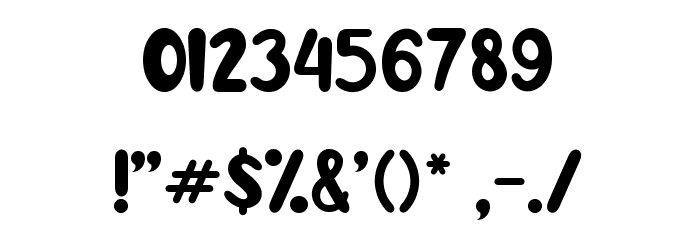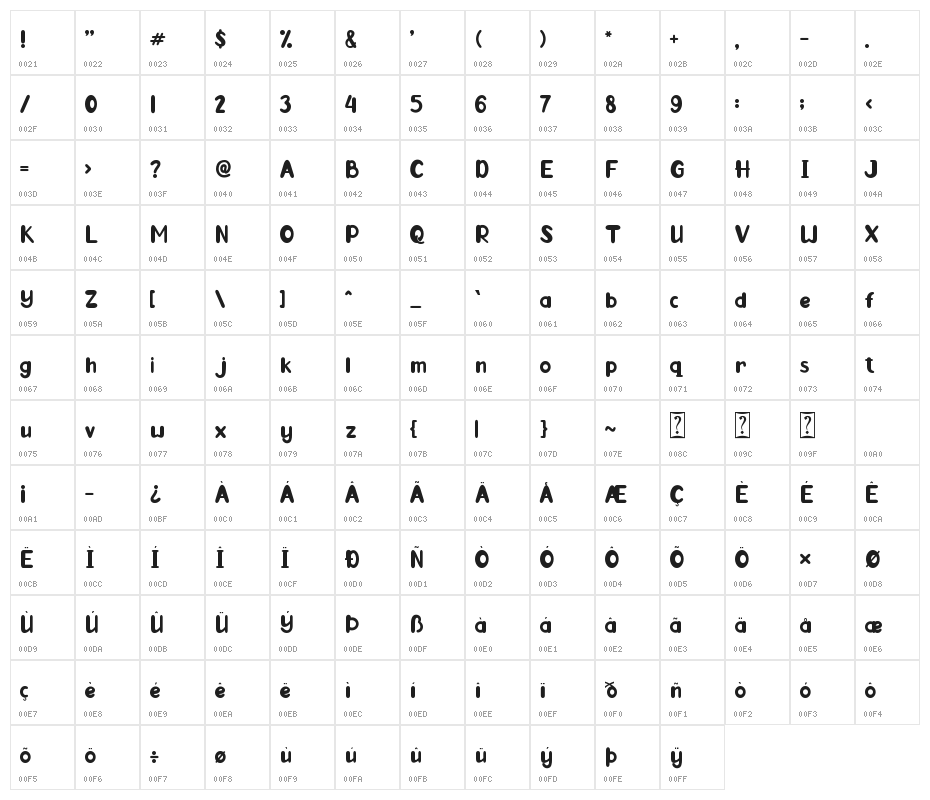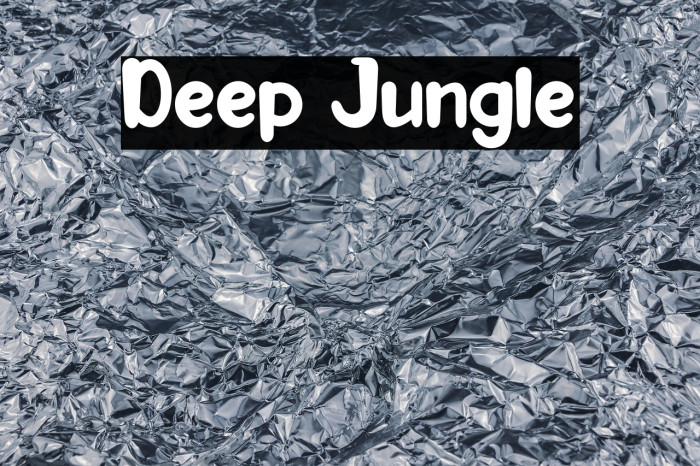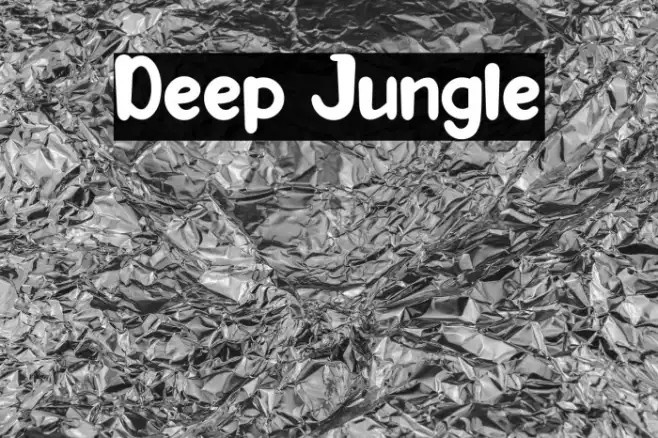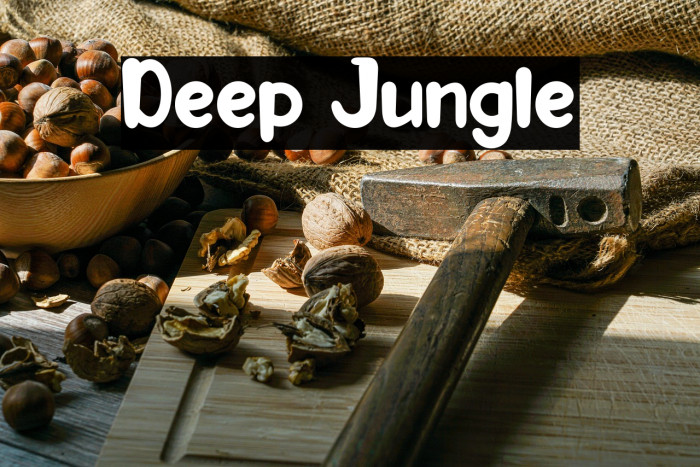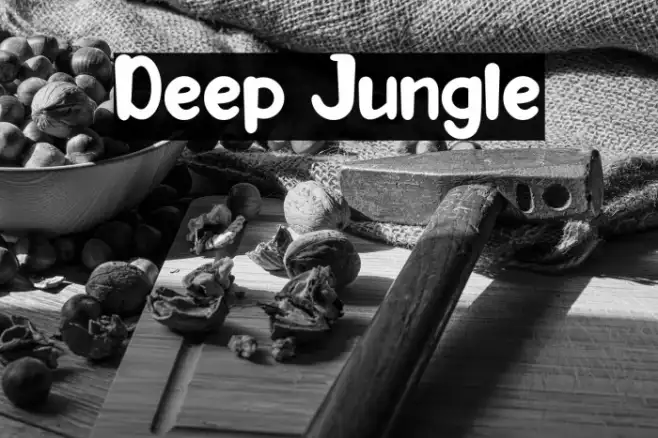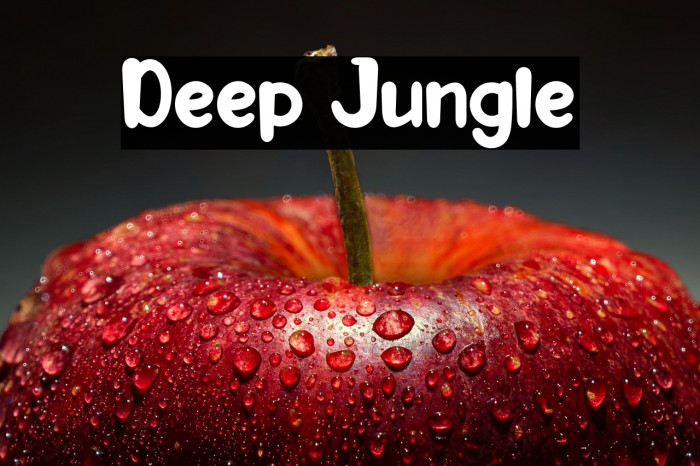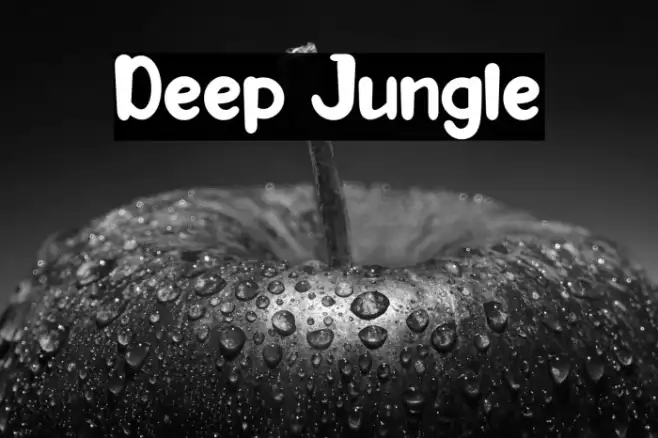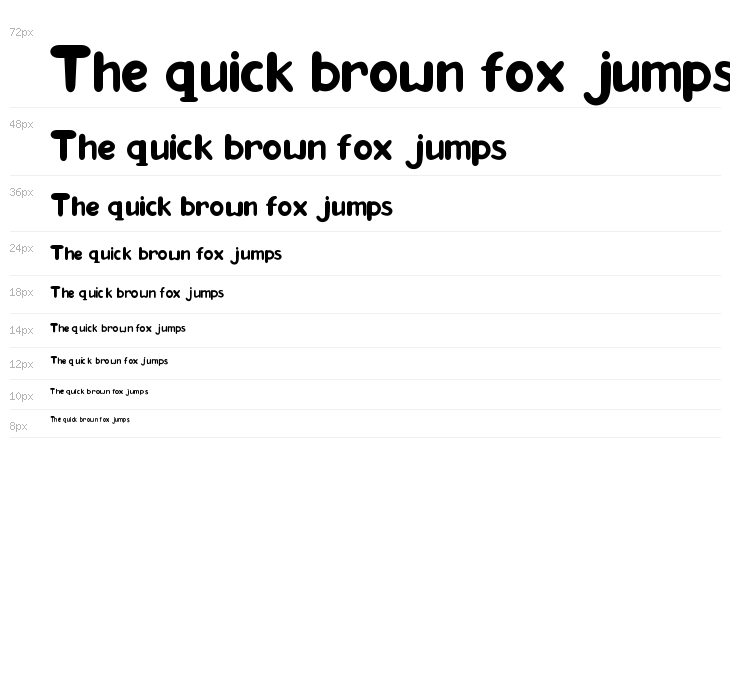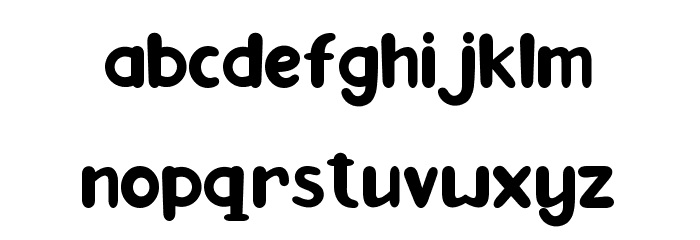
Deep Jungle Font
Deep Jungle Description
This playful and bold font features rounded, thick strokes that give it a friendly and approachable appearance. The characters are slightly irregular, adding a whimsical touch that makes it stand out. The uppercase and lowercase letters maintain a consistent style, with rounded edges and a uniform thickness that enhances readability. The numbers and special characters follow the same design principles, ensuring a cohesive look across all elements. This font is ideal for projects that require a fun and engaging aesthetic, such as children's books, playful branding, or creative posters.
| Proposed Projects | Children's books, playful branding, creative posters, and informal invitations. |